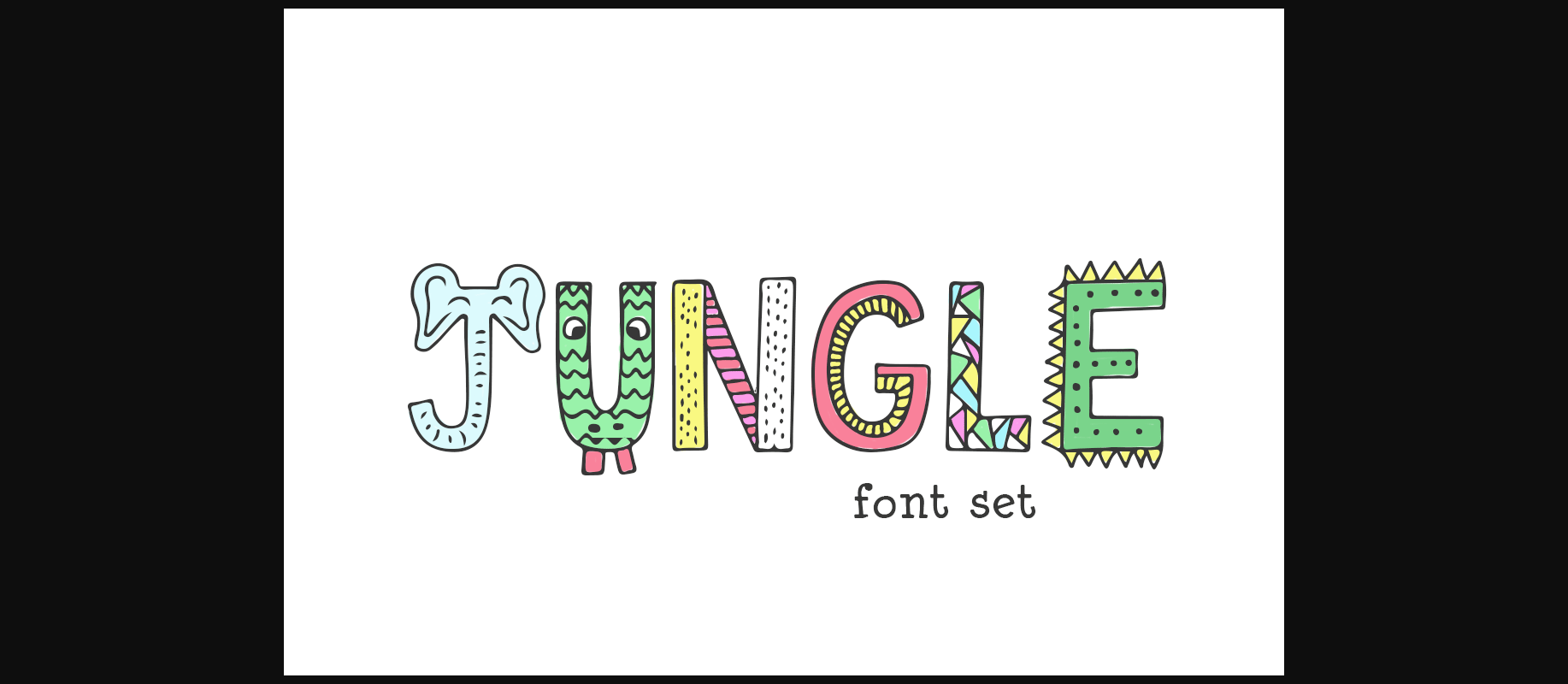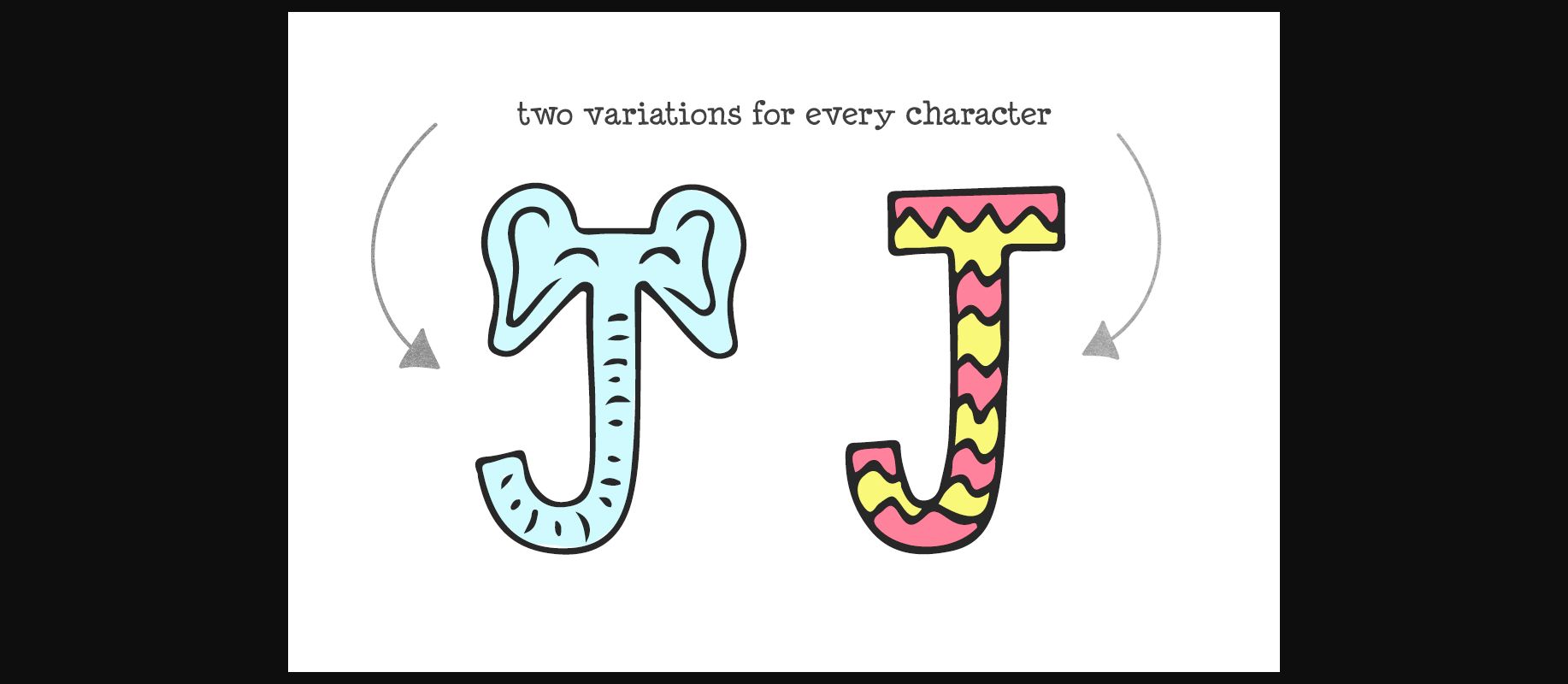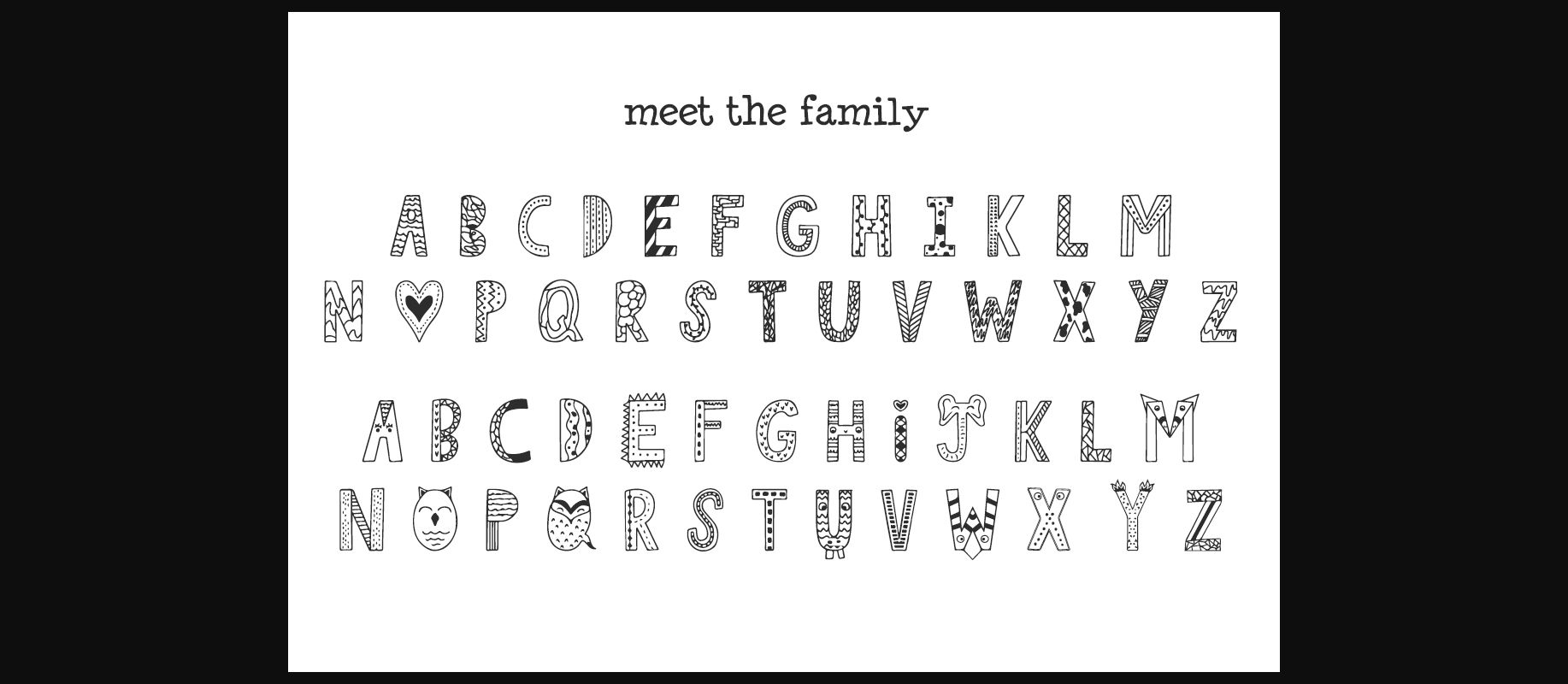
Jungle Font
About Jungle Font
The Jungle is an amazing decorative font. It includes 52 fun characters which were creatively created. Color them in or leave them blank, either way they are super cute!